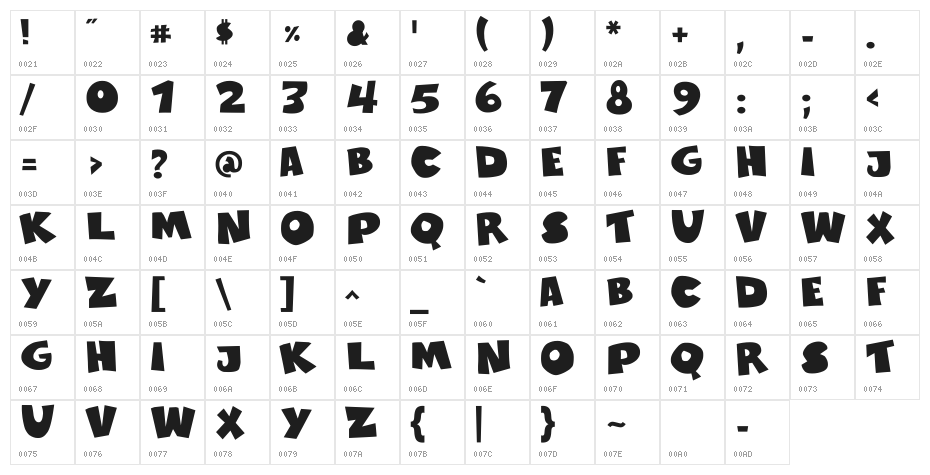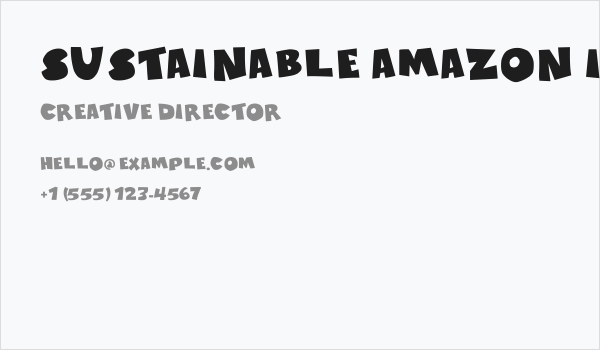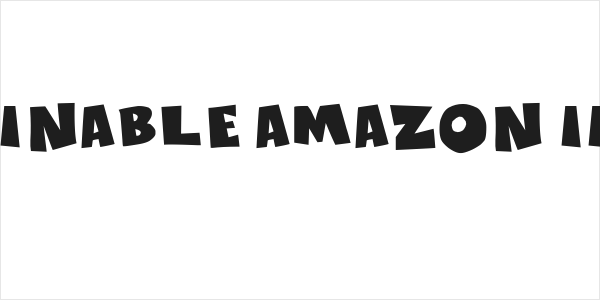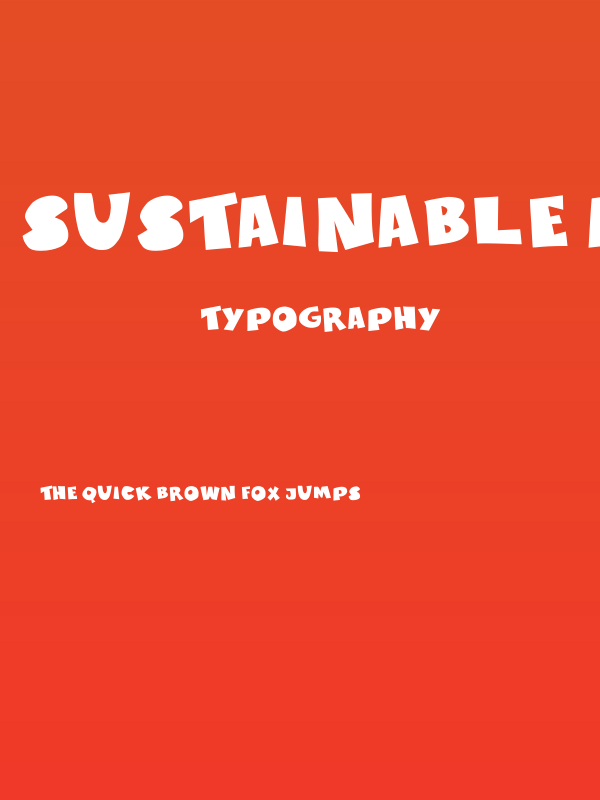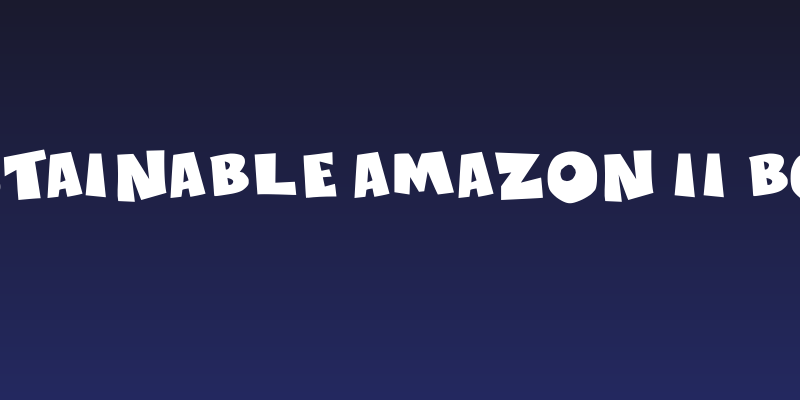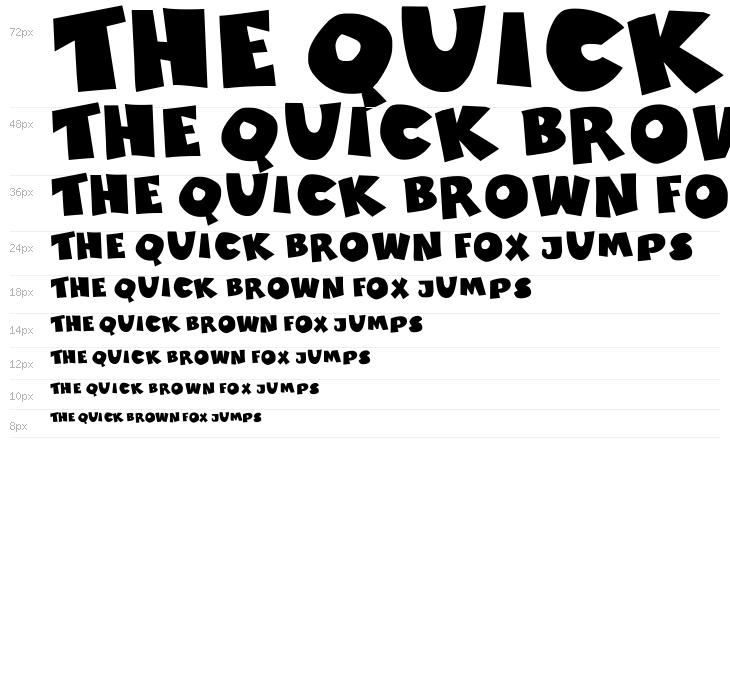
Sustainable Amazon II Bold Font
Sustainable Amazon II Bold Description
This font features a bold and playful design, characterized by its thick, rounded letters and slightly irregular shapes. The uppercase and lowercase letters maintain a consistent weight, giving it a cohesive appearance. The numbers and special characters are designed with the same boldness, ensuring uniformity across all characters. The font's style is reminiscent of hand-drawn or cartoonish lettering, making it ideal for projects that require a fun and informal touch. Its boldness ensures high visibility, making it suitable for headlines and attention-grabbing text.
| Overall Style | Playful, Cartoonish |
| Proposed Projects | Perfect for children's books, comic strips, playful branding, and event posters. |